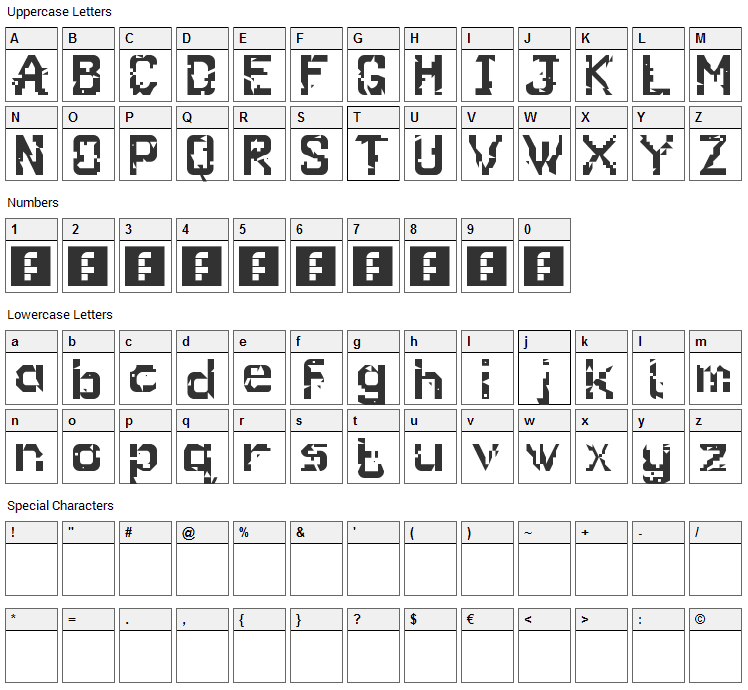
Glitch Font
Font Name:Glitch
Developer:Subversive Type
An experimental font that gives the appearance of digital glitching.
Glitch font contains 52 defined characters and 52 unique glyphs.
- Designer:subversivetype
- Description:ÄúGlitchÄù was built with FontStruct